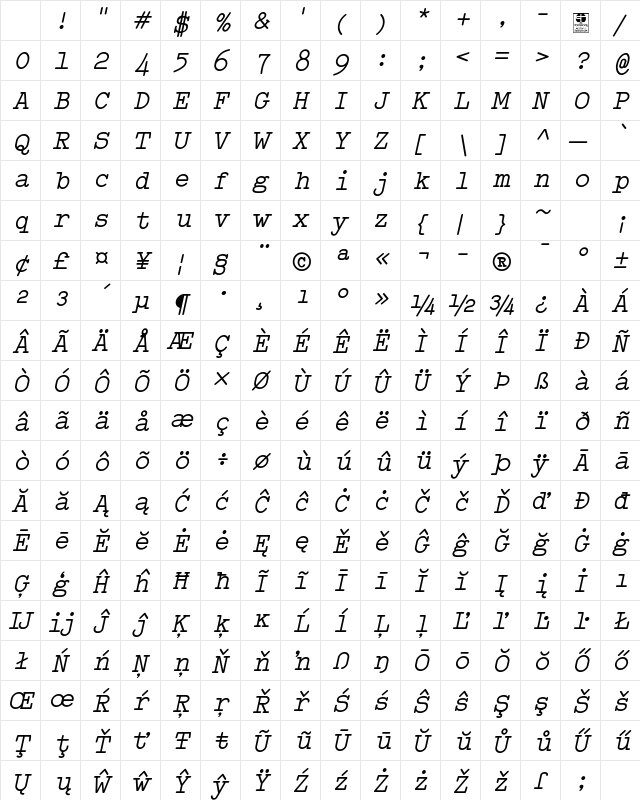
Complete Typo Writer Demo Italic glyph index. Displaying only characters natively supported by Typo Writer Demo Italic font.
Typo Writer Demo is a composed and adaptable typeface that performs quietly and consistently across a wide range of design contexts. The slanted form adds forward momentum and visual energy.
Pro Tip: Use Typo Writer Demo for emphasis, pull quotes, and subheadings where its slanted energy can add rhythm to the layout.